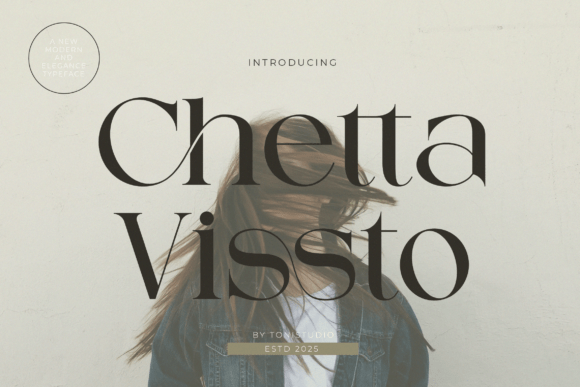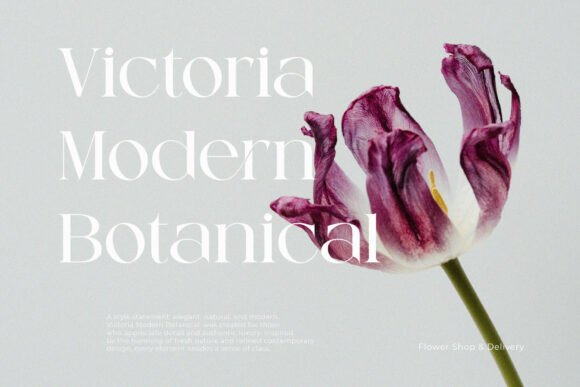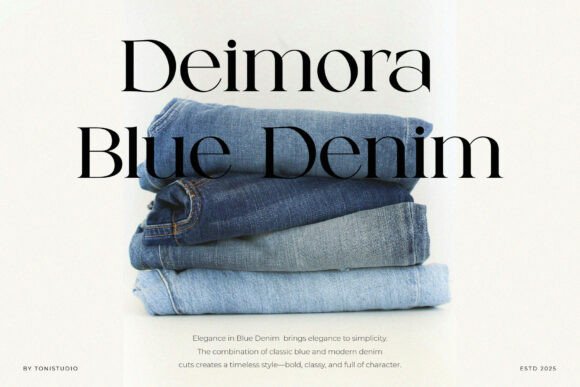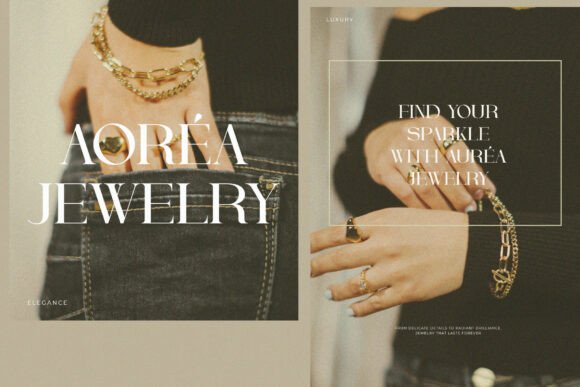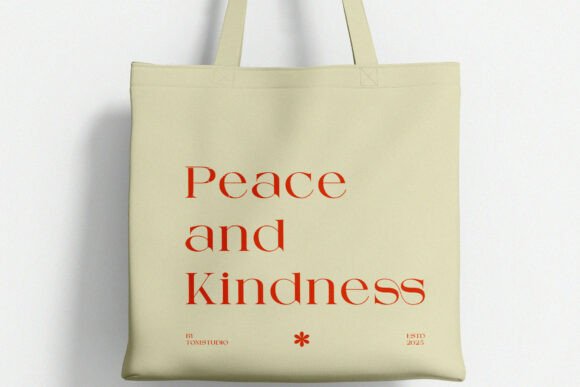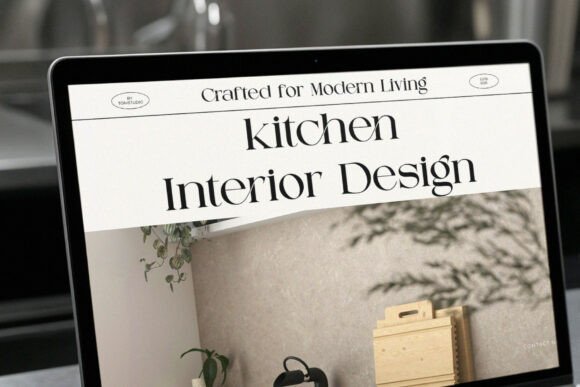
Introducing Chetta Vissto: The Epitome of Elegance and Luxury in Typography
In the realm of typography, few fonts manage to strike a balance between classic sophistication and futuristic flair. Chetta Vissto, a modern serif font, is one such exceptional typeface that seamlessly merges elegance, luxury, and visionary style. This versatile font is meticulously crafted to elevate premium branding, fashion logos, magazine editorials, wedding invitations, and a myriad of design projects that demand a touch of refinement and opulence.
The Essence of Chetta Vissto
Chetta Vissto embodies the perfect blend of traditional and contemporary design elements. Its classic and graceful feel is reminiscent of timeless typography, while its futuristic undertones inject a sense of innovation and forward-thinking. This harmonious blend makes Chetta Vissto an ideal choice for designers and crafters aiming to create stunning visual displays that exude luxury and sophistication.
Key Features of Chetta Vissto
- Smooth Curves and Thin Contrast: One of the defining characteristics of Chetta Vissto is its smooth, flowing curves and beautiful, thin contrast. These features contribute to its elegant appearance, making it suitable for designs that require a high level of sophistication.
- PUA-Encoding: The Chetta Vissto font is PUA-encoded, which means that accessing all glyphs, swashes, and alternate characters is effortless. This feature allows designers to customize their creations with ease, offering unparalleled flexibility in typographic design.
- Versatility: Whether it’s for premium branding, fashion logos, magazine editorials, or wedding invitations, Chetta Vissto proves to be an incredibly versatile font. Its adaptability makes it a valuable asset for any designer looking to create visually stunning and cohesive designs across various mediums.
Applications of Chetta Vissto
The applications of Chetta Vissto are vast and varied. Here are a few examples of how this magnificent font can elevate your design projects:
- Premium Branding: For brands aiming to establish a luxurious and sophisticated image, Chetta Vissto is an excellent choice. Its elegant and refined appearance can significantly enhance brand identity and visual communication.
- Fashion Logos: In the competitive world of fashion, standing out is crucial. Chetta Vissto, with its unique blend of classic and modern elements, can help fashion brands create memorable logos that convey luxury and style.
- Magazine Editorials: For editorial designs that demand a touch of elegance and sophistication, Chetta Vissto is a perfect fit. It can add a level of refinement to magazine covers, articles, and advertisements, making the content more engaging and visually appealing.
- Wedding Invitations: For those planning their special day, Chetta Vissto offers a beautiful and sophisticated typographic solution for wedding invitations. Its elegant appearance can set the tone for a luxurious and memorable event.
Why Choose Chetta Vissto?
In a sea of fonts, Chetta Vissto stands out for several reasons:
- Unique Aesthetic: Its blend of classic and futuristic elements offers a unique aesthetic that can set your designs apart.
- High Versatility: The font’s adaptability across various design projects makes it a valuable addition to any designer’s toolkit.
- User-Friendly: Being PUA-encoded, it offers ease of use, allowing designers to focus on creativity rather than technicalities.
| Author | ToniStudio |
Chetta Vissto is more than just a font; it’s a design statement. With its elegant and sophisticated appearance, it offers designers and crafters the tools to create visually stunning displays for a wide range of projects. Whether you’re aiming to craft a luxurious brand identity, a stylish fashion logo, or an elegant wedding invitation, Chetta Vissto is the perfect companion. Its unique blend of classic and modern design elements, coupled with its versatility and user-friendly features, makes it an indispensable asset for anyone looking to elevate their design work.